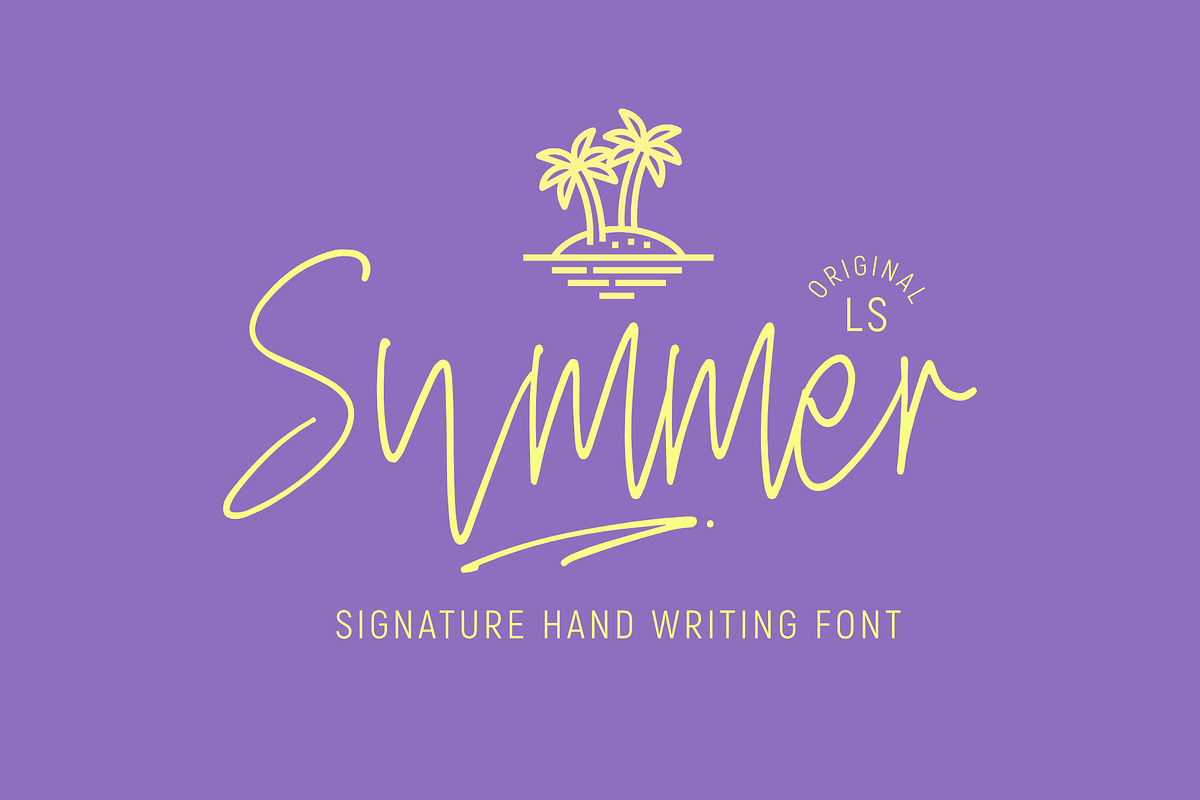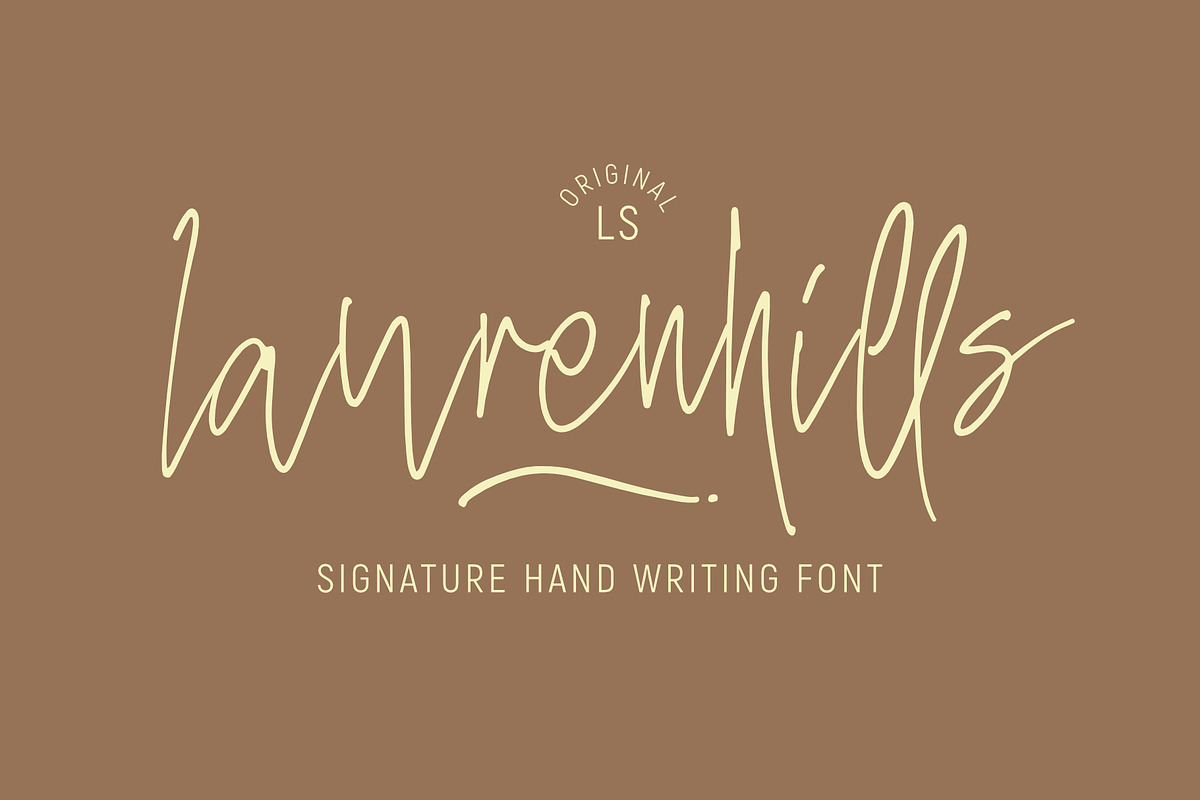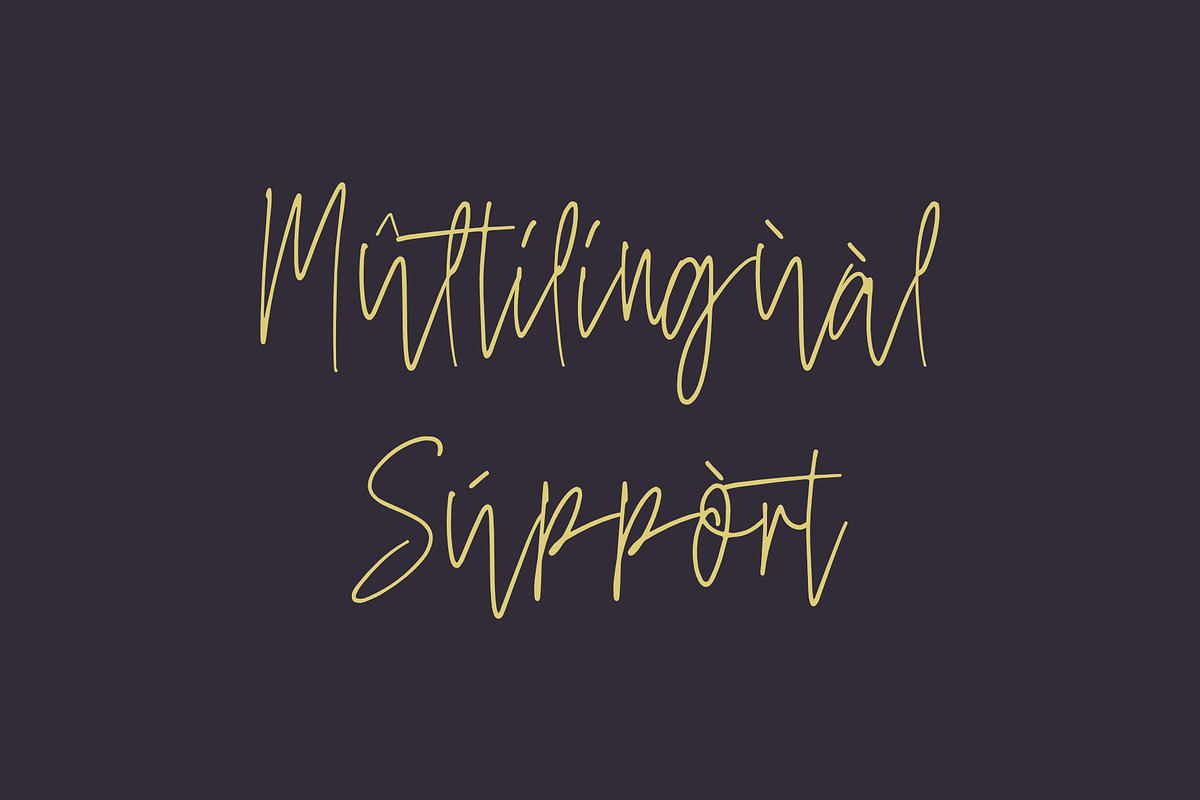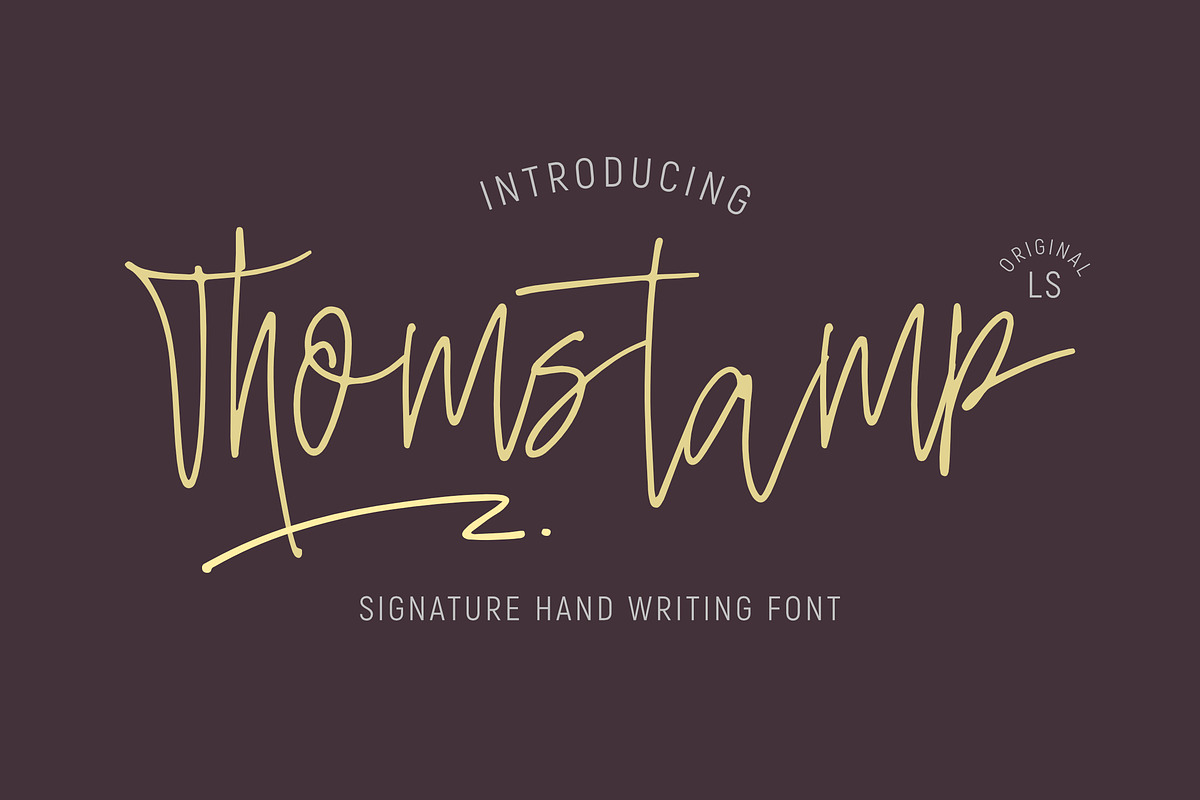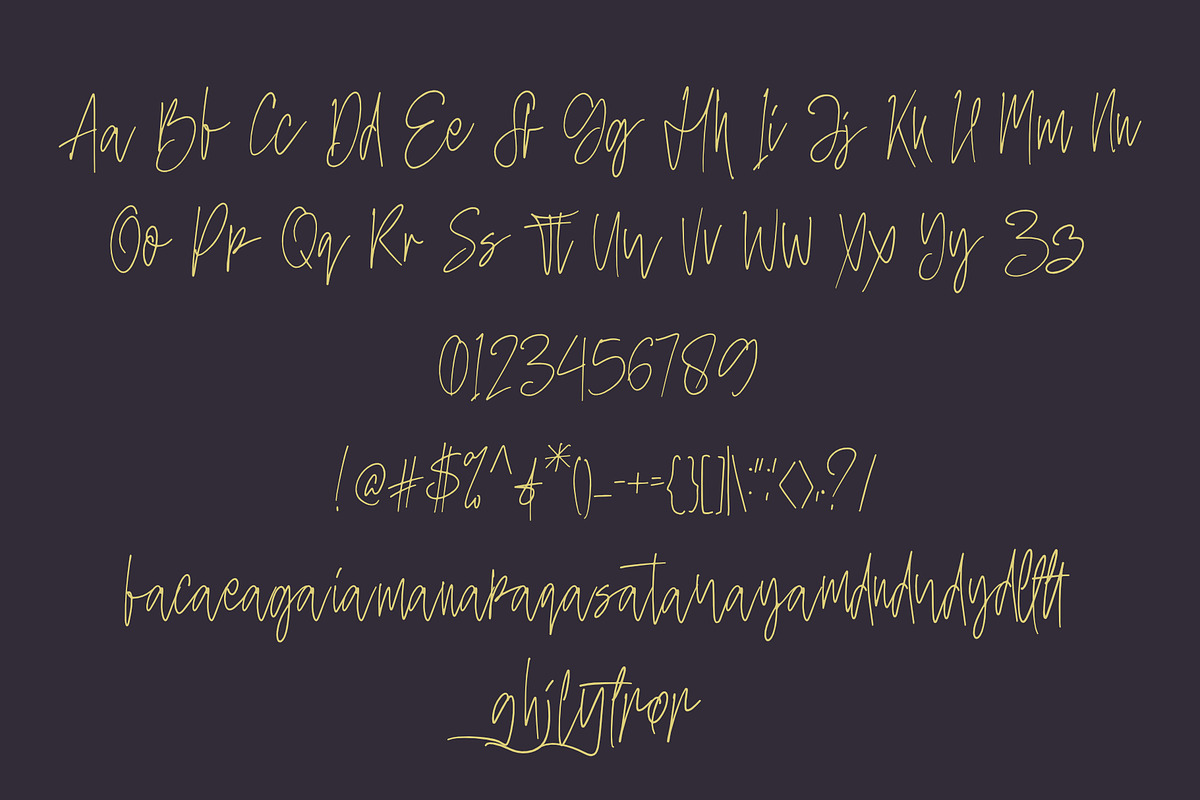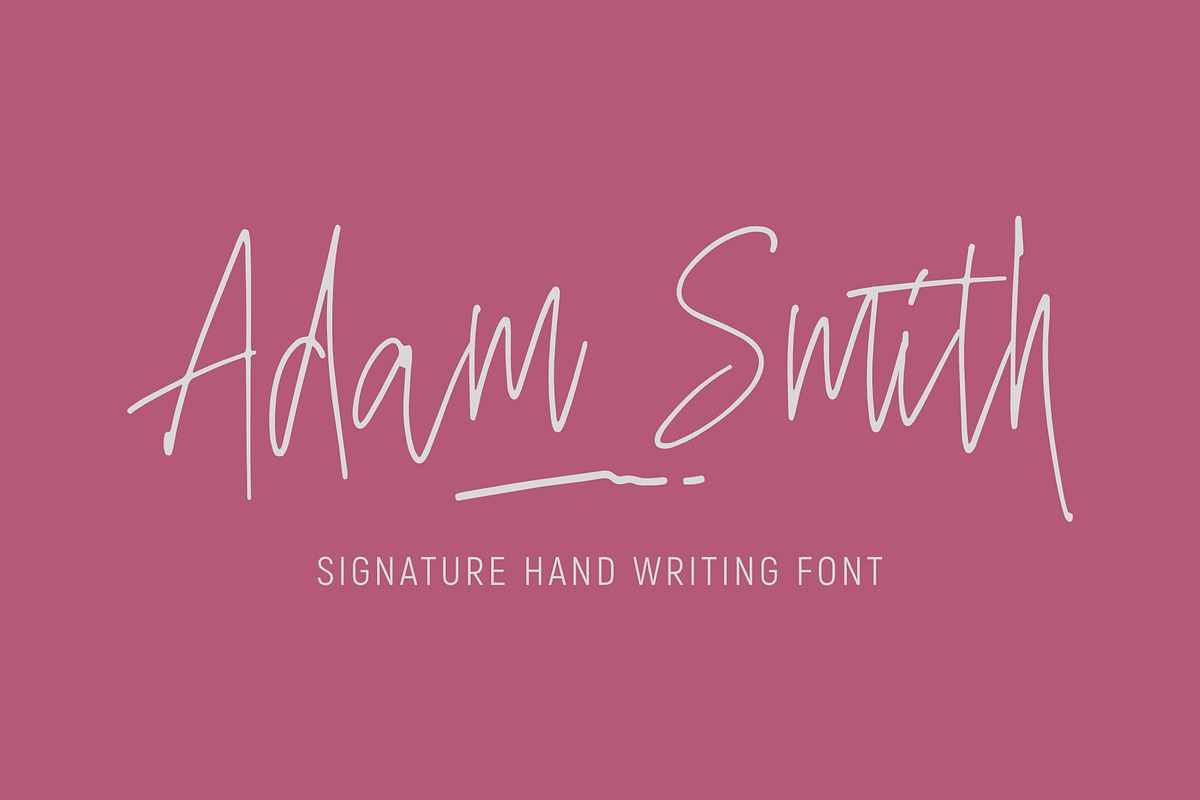
Thomstamp
Thomstamp Script Font
This pair was inspired by the retro poster design that i saw on some coffee shop, It was crafted by hand specially to add natural handmade feeling in its brand identity than i make it clean with pentool.
Opentype features Thomstamp Script font has 203 character set included 16 Stylistic alternate and 3 ligature Thomstamp Font is very good looking in logo, labels, t-shirt prints, product packaging, invitations, advertising and others.